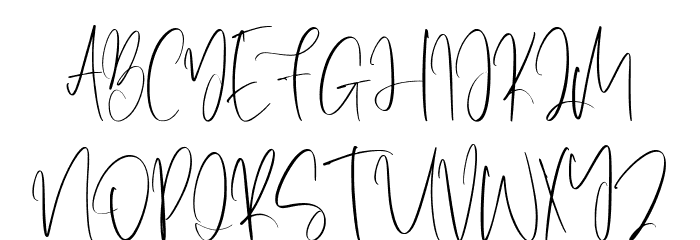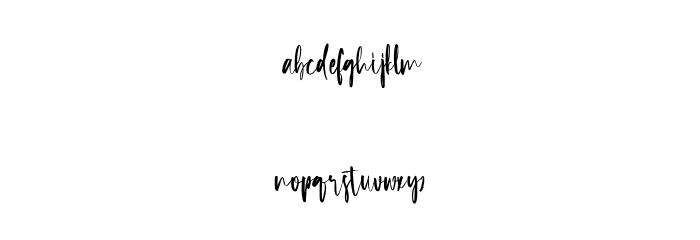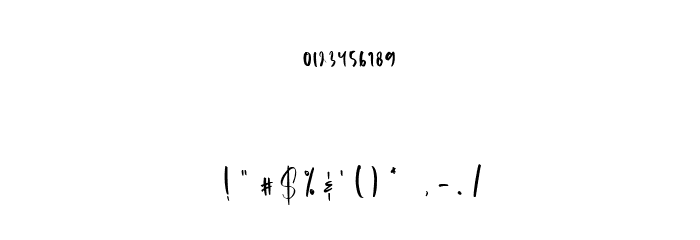
Inspiring Font
This font exhibits a flowing, cursive style with an elegant and artistic flair. The uppercase letters are tall and slender, featuring graceful loops and swirls that add a touch of sophistication. The lowercase letters maintain a consistent style, with smooth curves and a slightly whimsical appearance. The numbers are clear and legible, complementing the overall aesthetic. Special characters are designed with the same artistic touch, ensuring a cohesive look across all elements. This font is perfect for projects that require a personal, handwritten feel, while still maintaining readability and elegance.
A flowing, cursive font with elegant loops and a handwritten feel.
- Proposed Projects: Ideal for wedding invitations, greeting cards, personal branding, and artistic projects.
- Use Case: Logos, Invitations, Artistic projects